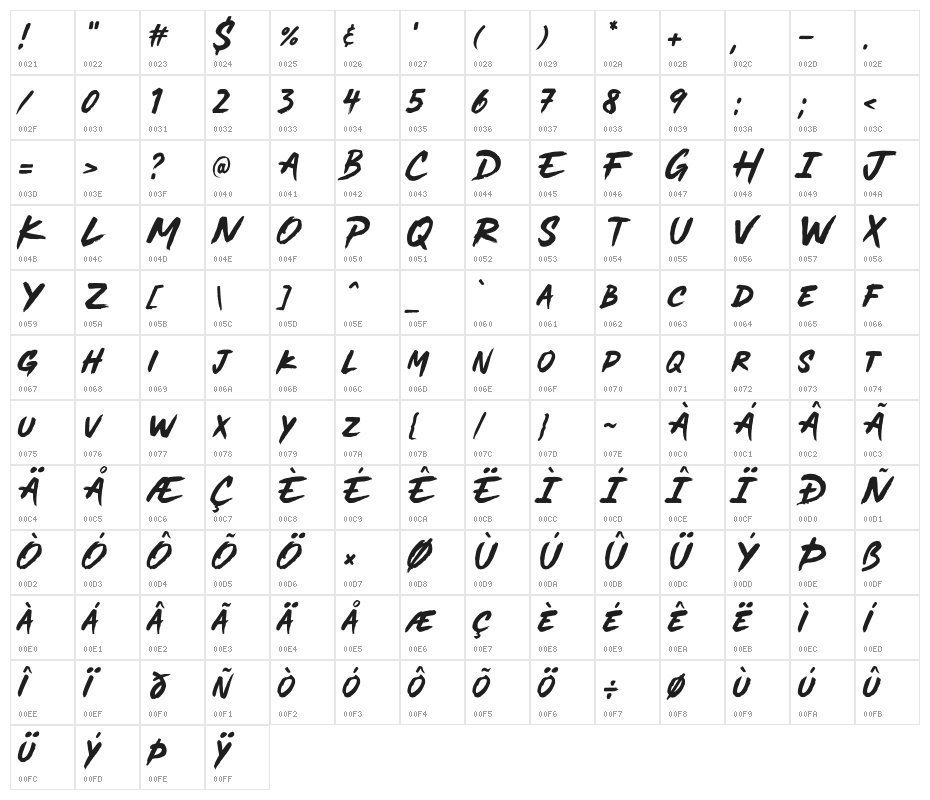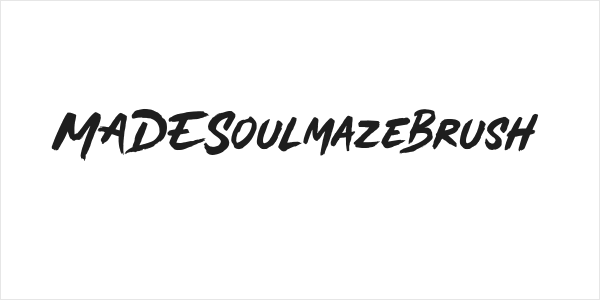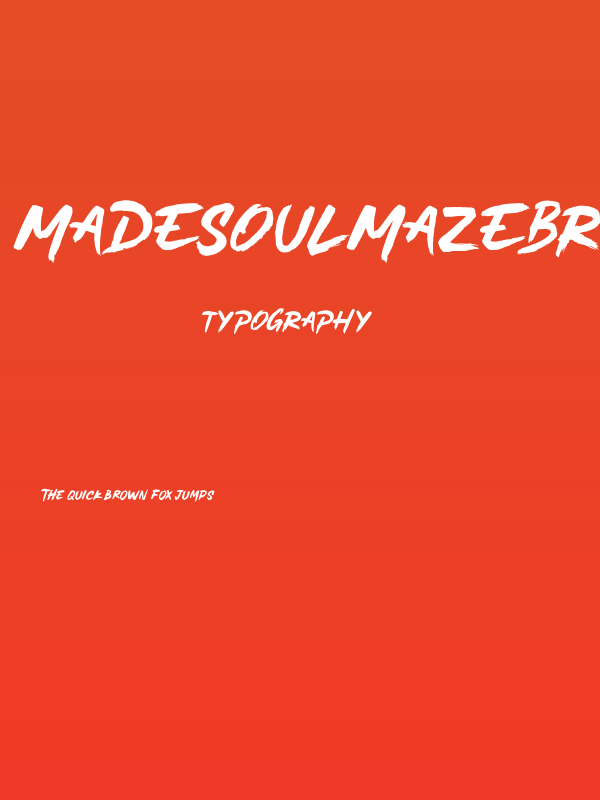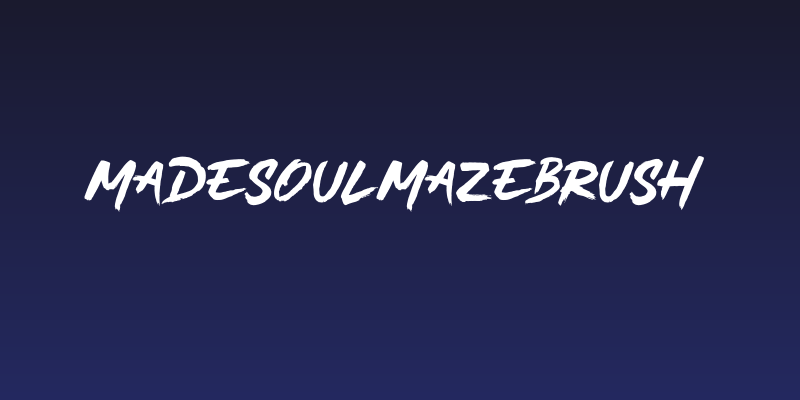
MADESoulmazeBrush Font
MADESoulmazeBrush Description
This brush-style font exudes a dynamic and energetic feel, characterized by its bold and expressive strokes. The letters are crafted with a hand-painted appearance, giving them a raw and artistic vibe. The uppercase and lowercase letters maintain a consistent flow, while the numbers and special characters complement the overall style. The font's irregular edges and varying stroke thicknesses add to its organic and spontaneous look, making it ideal for creative and artistic projects.
Proposed ProjectsIdeal for branding, posters, album covers, and any project requiring a bold, artistic touch.